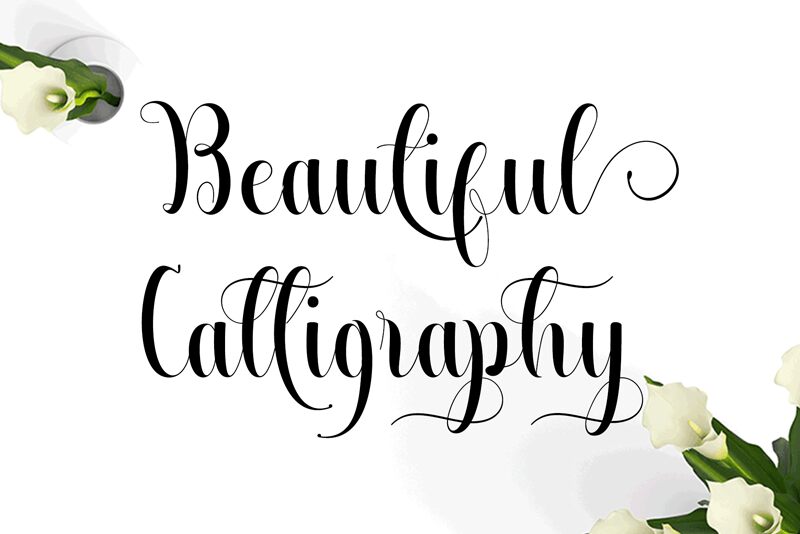
Beautiful Calligraphy Free
Beautiful Calligraphy is a script font that has the characteristic handwriting, it is very suitable to make certain label and event business and you could be using for a unique piece. Visit here to get full version